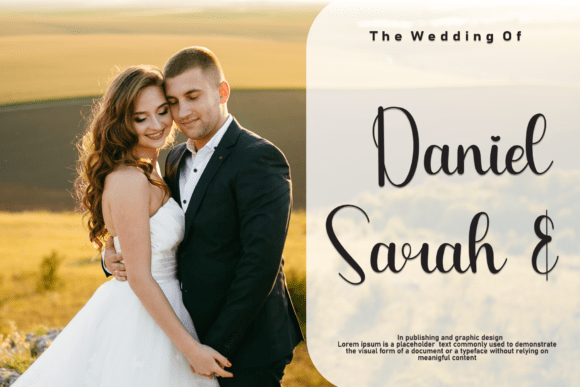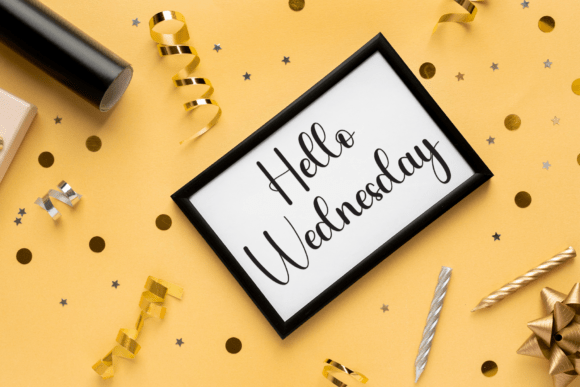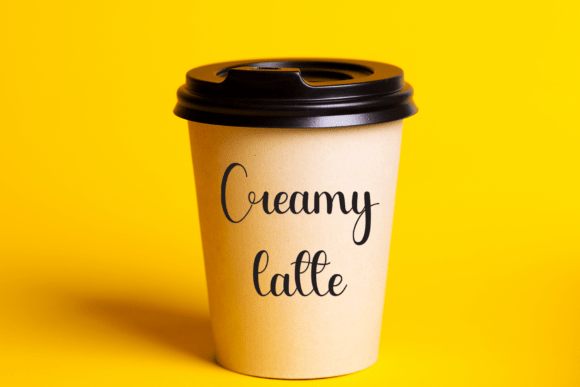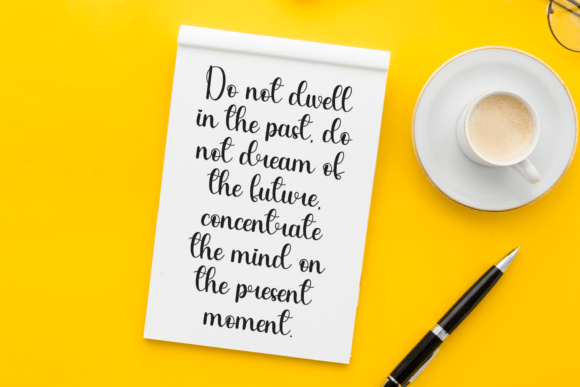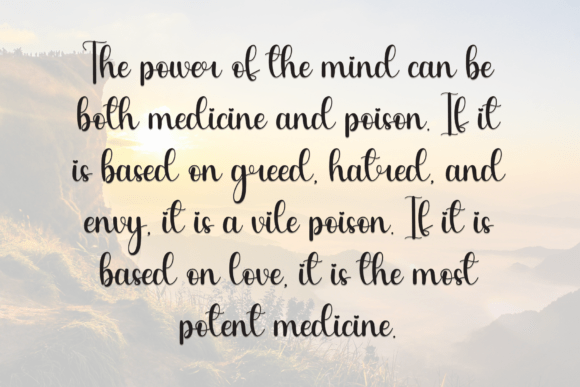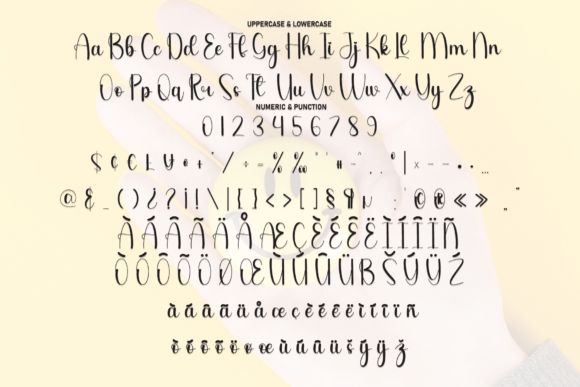
The Emoticon Font: A Fresh Take on Elegance
I’ll never forget the design project that led me to discover the Emoticon font. I was working on a wedding invitation suite, and my client wanted a typeface that exuded elegance, yet felt approachable and personal. After hours of scouring font libraries, I stumbled upon Emoticon – a stylish handwritten script font that instantly won me over. Its flowing strokes and delicate charm perfectly captured the essence of the occasion, and I knew I’d found the perfect fit.
So, what makes Emoticon so special? Let’s dive into the good stuff:
• ✨ Fresh and elegant vibe that’s perfect for invitations, branding, and seasonal designs
• ✅ Delicate charm that adds a soft, personal touch to any project
• 💫 Flowing strokes and graceful curves that evoke a sense of renewal
• 🎉 Highly versatile and suitable for a wide range of creative applications
Of course, no font is perfect, and Emoticon has a few minor quirks:
• 🤔 Some users may find the font a tad too ornate for very casual or playful projects
• ⚠️ Limited availability of certain OpenType features in older software or platforms
The Story Behind Emoticon
Emoticon was designed with the intention of capturing the essence of fresh elegance and delicate charm. Its creator aimed to craft a typeface that would evoke a sense of renewal and uplift, perfect for a wide range of creative applications. While the exact story behind Emoticon may be shrouded in mystery, its beautiful design and versatility have won over the hearts of many designers and crafters.
What makes Emoticon suitable for invitations and seasonal designs? Emoticon’s elegant and delicate design makes it perfect for special occasions and seasonal designs, adding a touch of sophistication and charm to any project.
Does Emoticon support OpenType features? Yes, Emoticon supports OpenType features, including stylistic alternates and glyphs, which can be accessed in compatible software and platforms.